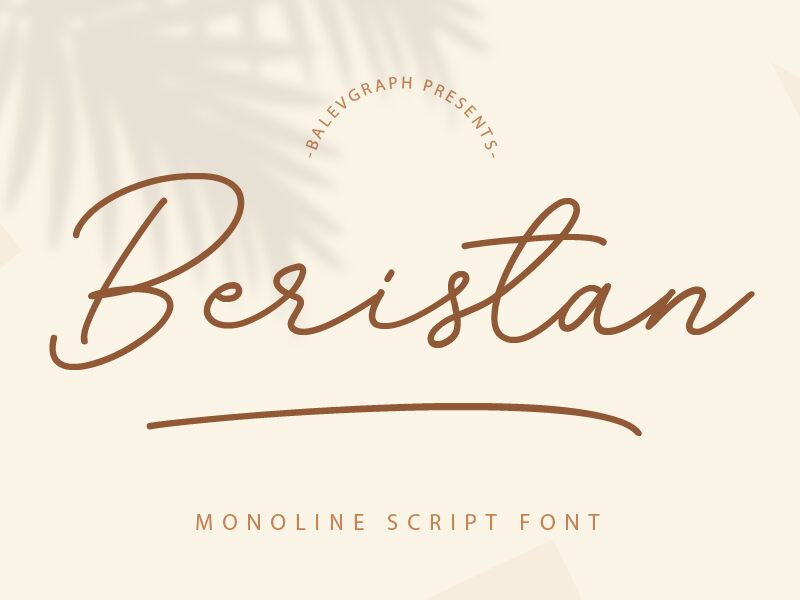
Beristan, designed by Balev, is a captivating monoline script font that exudes elegance and sophistication.
Its light weight adds a delicate touch to any project, making it perfect for wedding invitations and other romantic occasions. With its smooth curves and graceful strokes, Beristan also lends itself well to branding projects seeking a modern yet refined aesthetic. Whether used for fashion magazines or luxury packaging, this font effortlessly elevates the visual appeal of any design.